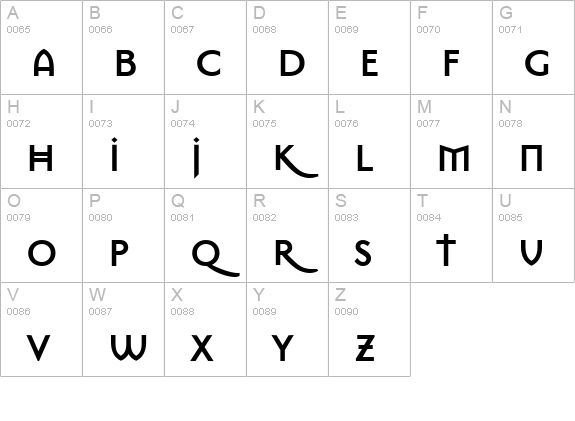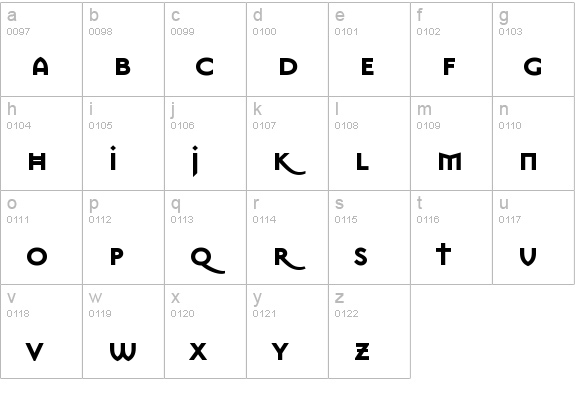
MasonSansBold Bold is a strong, high-contrast variant in the MasonSansBold typeface family \xE2\x80\x94 well suited to headlines, attention-grabbing titles, and strong calls-to-action.
MasonSansBold Bold is a striking and powerful font that commands attention with its bold and robust design. Its clean lines and sharp edges make it perfect for headlines, titles, and any other text that needs to make a strong impact. The thick strokes give this font a sense of strength and reliability, making it an excellent choice for branding, logos, and advertising materials. What sets MasonSansBold Bold apart is not just its impressive aesthetic, but also the fact that it is freely available to download at FontsMarket.com. This means that you can access this exceptional font without any cost or restrictions. Whether you're a professional designer or a casual hobbyist, having access to high-quality fonts can greatly enhance your creative projects. With MasonSansBold Bold, you can easily create eye-catching designs that stand out from the crowd. Its versatility allows it to be used in a variety of contexts, from print to digital media. The bold weight of this font ensures that your messages are conveyed with clarity and impact, leaving a lasting impression on your audience. So why wait? Take advantage of the opportunity to download MasonSansBold Bold for free at FontsMarket.com and elevate your design projects to new heights. Whether you're designing a website, creating a poster, or crafting a logo, this font will undoubtedly make a bold statement and help you achieve the desired impact.